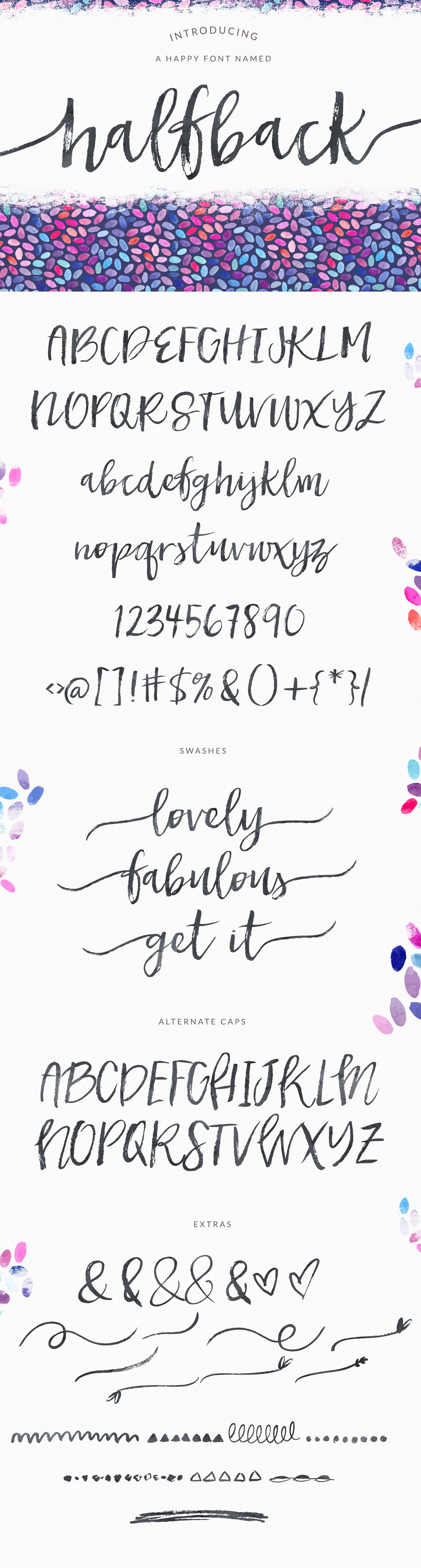
Halfback - A Dry Brushed Script Font
Meet Halfback... a happy little dry brushed font with a lovely texture, swashes, extras, and more!
- Halfback Regular- A happy little dry brushed font
- Halfback Alternates - An alternate set of uppercase letters accessible by using a-z or A-Z
- Halfback Swashes - Easily access swashes without a glyphs panel. Type lowercase letters a-z for beginning swashes and uppercase A-Z for end swashes.
- Halfback Extras - Repeating decorative borders, hearts, doodles, and swashes you can add manually. Image guide for ease of use is included.
Open Type features include contextual alternates and ordinals.
Use halfback on all of your projects to give it a lovingly hand brushed feel. In particular I think Halfback would look great on: